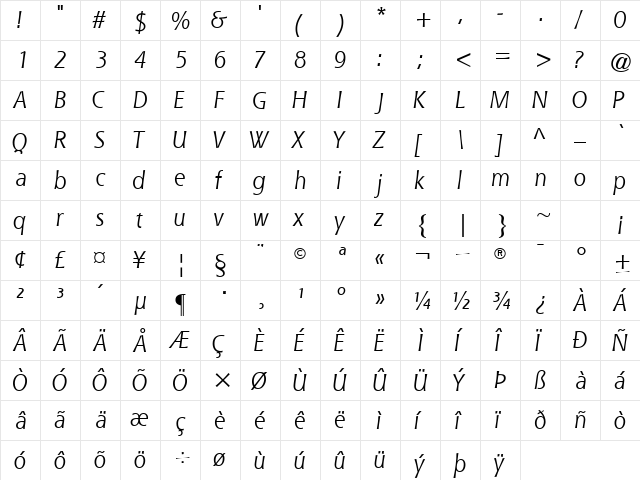
QueSSK Italic
Design Context for QueSSK Typeface
QueSSK takes a measured approach to typography — its balanced proportions and neutral character make it a reliable workhorse for both digital and print work. The slanted form adds forward momentum and visual energy.
Pro Tip: Try QueSSK for annotation and caption copy alongside an upright companion — the contrast in angle creates a dynamic but ordered typographic system.